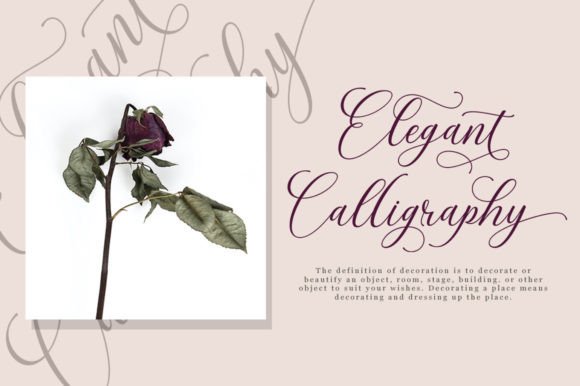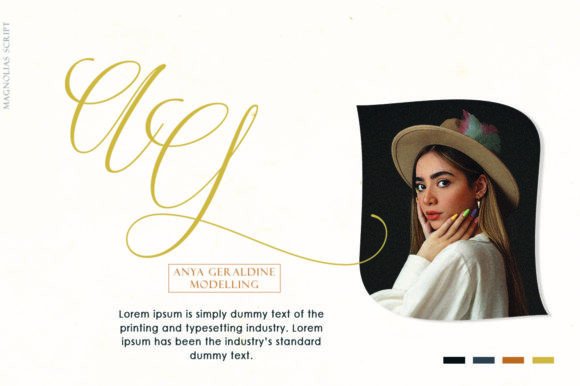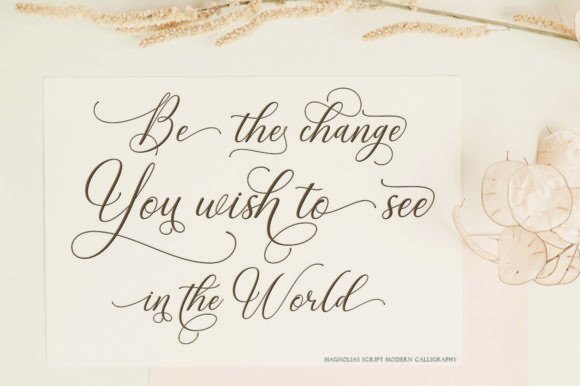
Magnolias Script Font
Magnolias Script is a modern calligraphy script font that comes with beautiful and unique alternative characters. Magnolias Script is appealing because it’s smooth, clean, feminine, sensual, glamorous, simple, and very easy to read. The classic style is perfect for all kinds of formal items such as invitations, labels, menus, logos, fashion, makeup, stationery, and many more.This font is PUA encoded which means you can access all glyphs and swashes effortlessly!